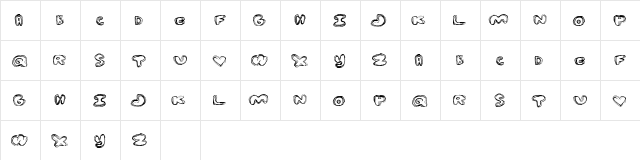
OutlineAround Regular
| Foundry | Xerographer Fonts |
| Designer | Max Infeld |
Design Context for OutlineAround Typeface
OutlineAround brings ornamental detail and strong personality to headlines and identities, where visual impact matters more than quiet functionality.
Font Pairing: Pair with a clean neutral sans-serif for body copy to let OutlineAround's character lead without overwhelming the composition.
Pro Tip: Treat OutlineAround as the centrepiece of your typographic hierarchy. One strong heading set in a decorative face can carry an entire layout.